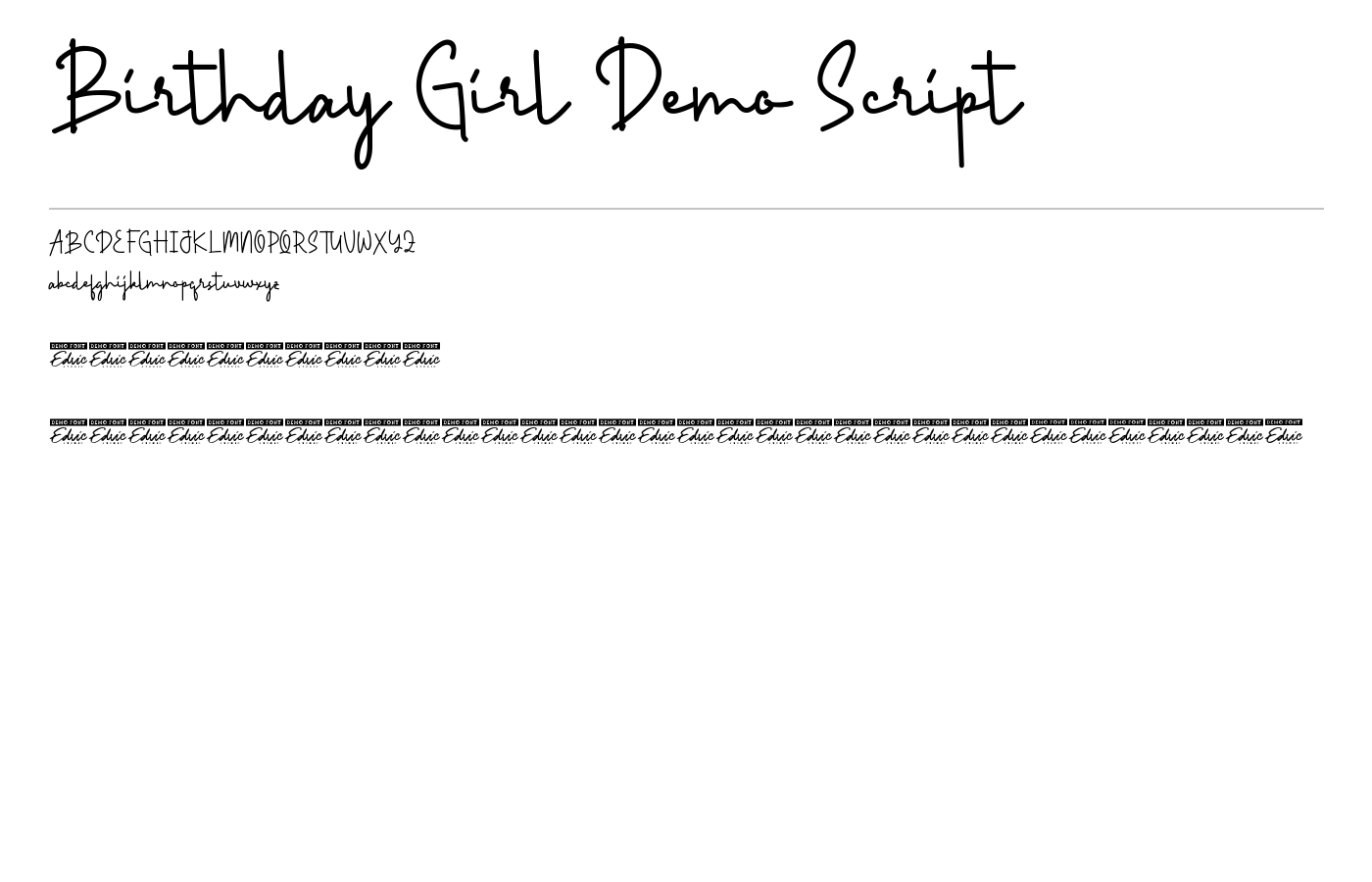
Birthday Girl Demo is a playful and casual script font with a handwritten charm, featuring slender, flowing strokes that give it a light and airy feel. Its tall, narrow letterforms and slightly quirky irregularities make it perfect for creative, informal designs like greeting cards, invitations, and fun branding projects where a personal touch and warmth are desired. This font works beautifully in settings that highlight friendliness and creativity, adding a joyful, approachable vibe to any design.
Birthday Girl Demo Font
About Birthday Girl Demo Font